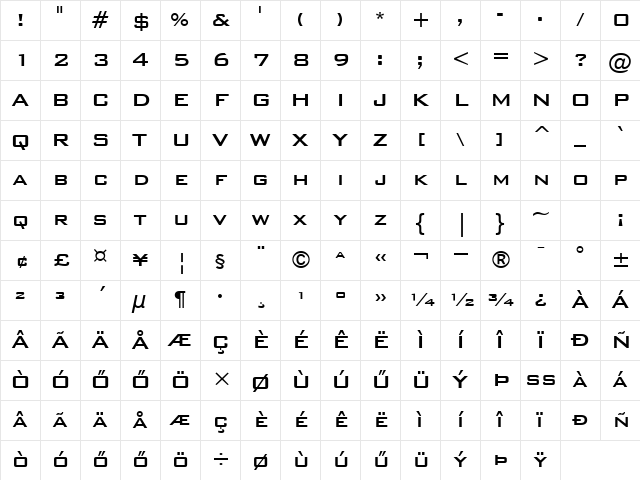
Complete H_Bank Gothic Medium BT Regular glyph index. Displaying only characters natively supported by H_Bank Gothic Medium BT Regular font.
H_Bank Gothic Medium BT takes a clean, functional approach - its unadorned letterforms prioritise legibility and work reliably across screen and print environments.
Font Pairing: Works well alongside a characterful serif or display font that can carry the expressive load while H_Bank Gothic Medium BT handles the functional copy.
Pro Tip: Use H_Bank Gothic Medium BT for UI labels, navigation, and short-form body copy where clean legibility is the priority.